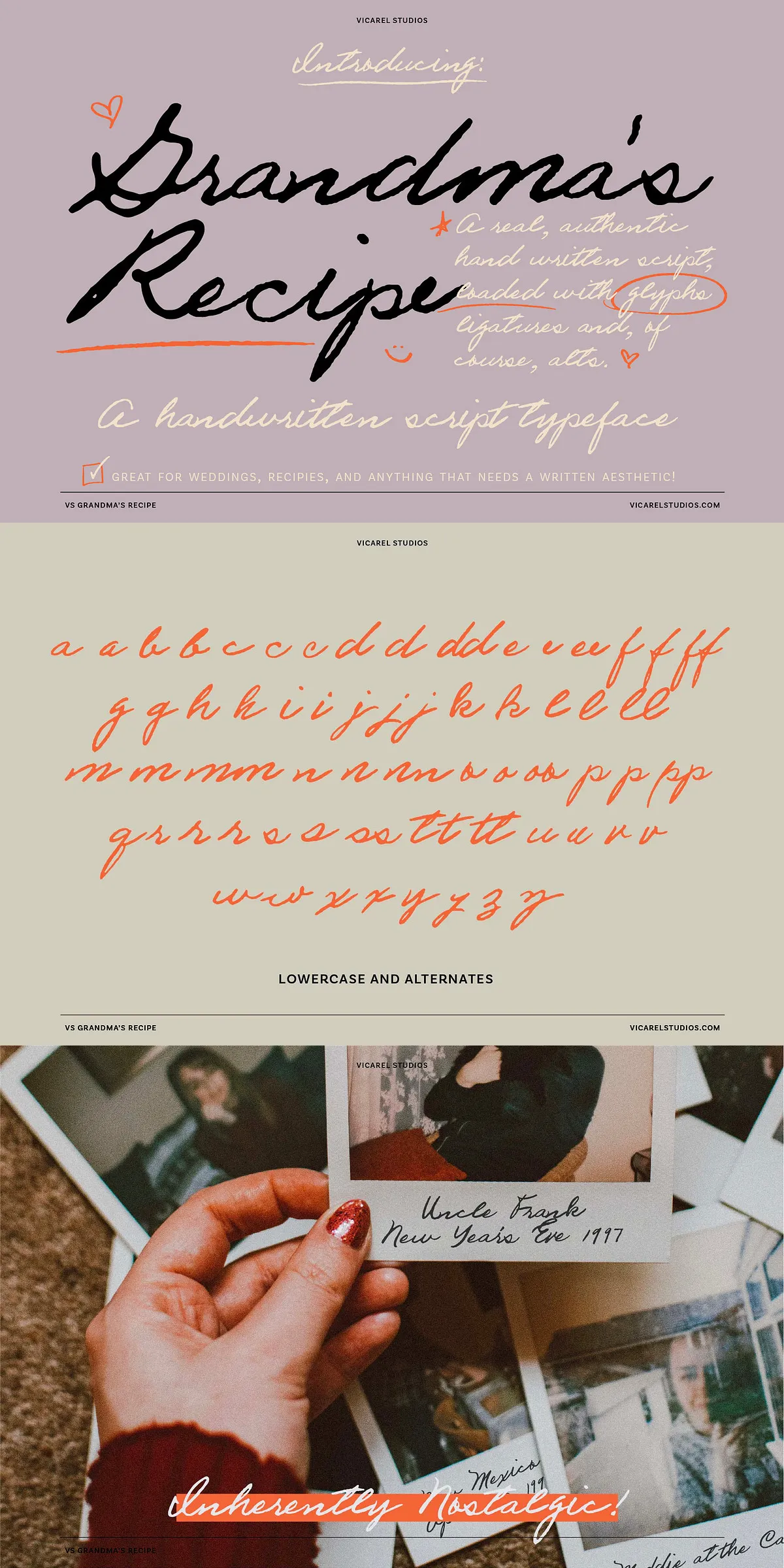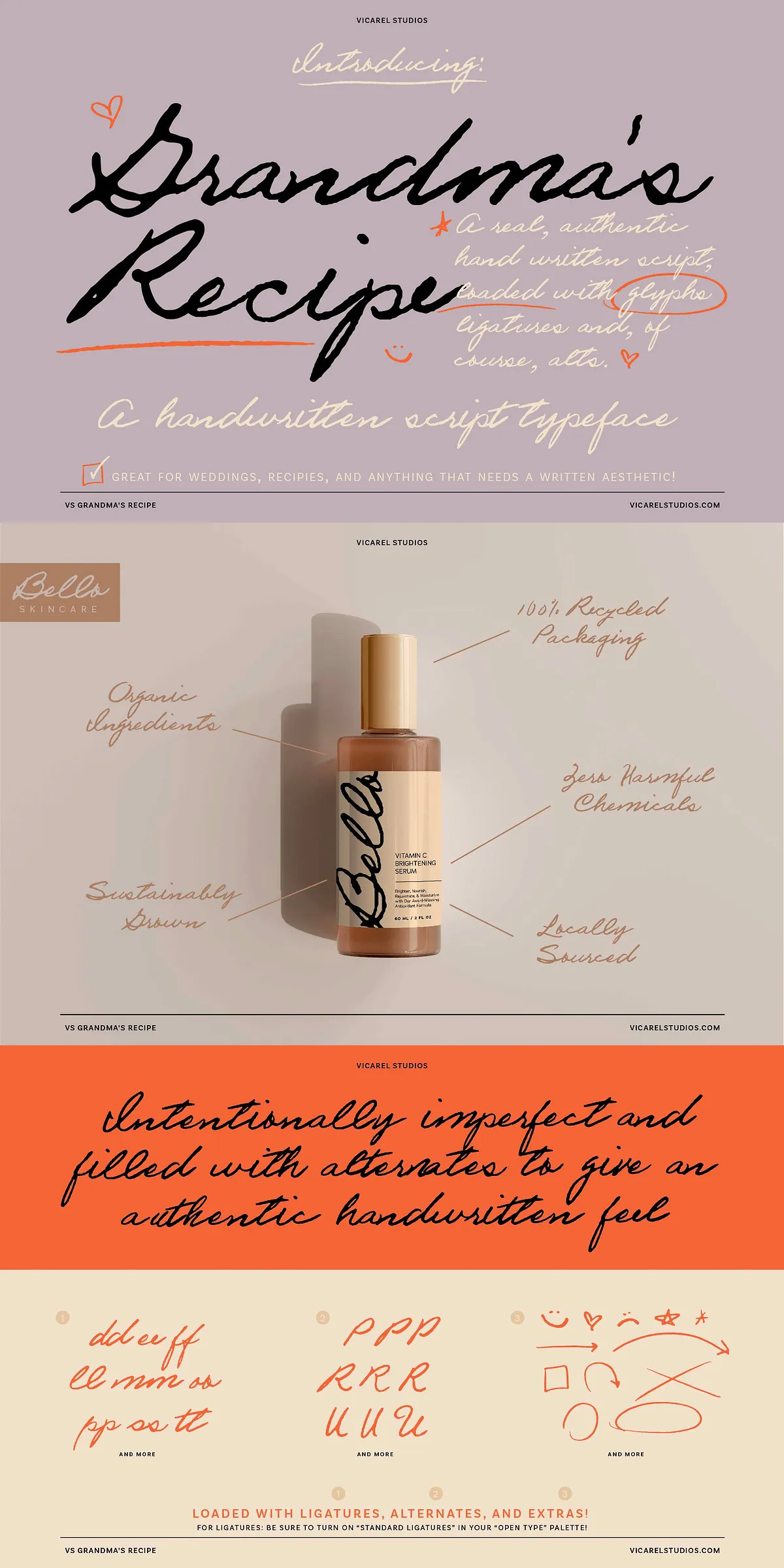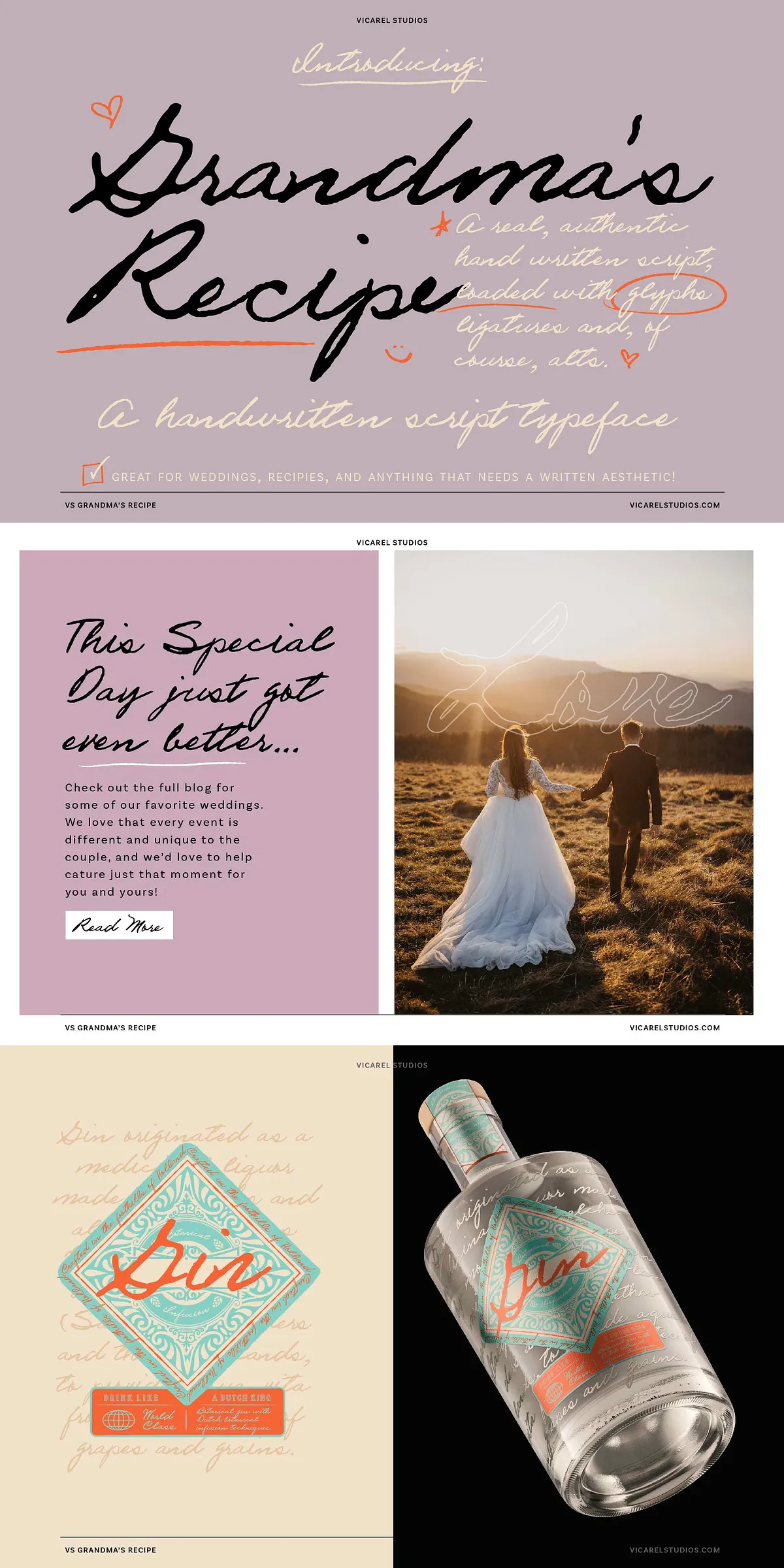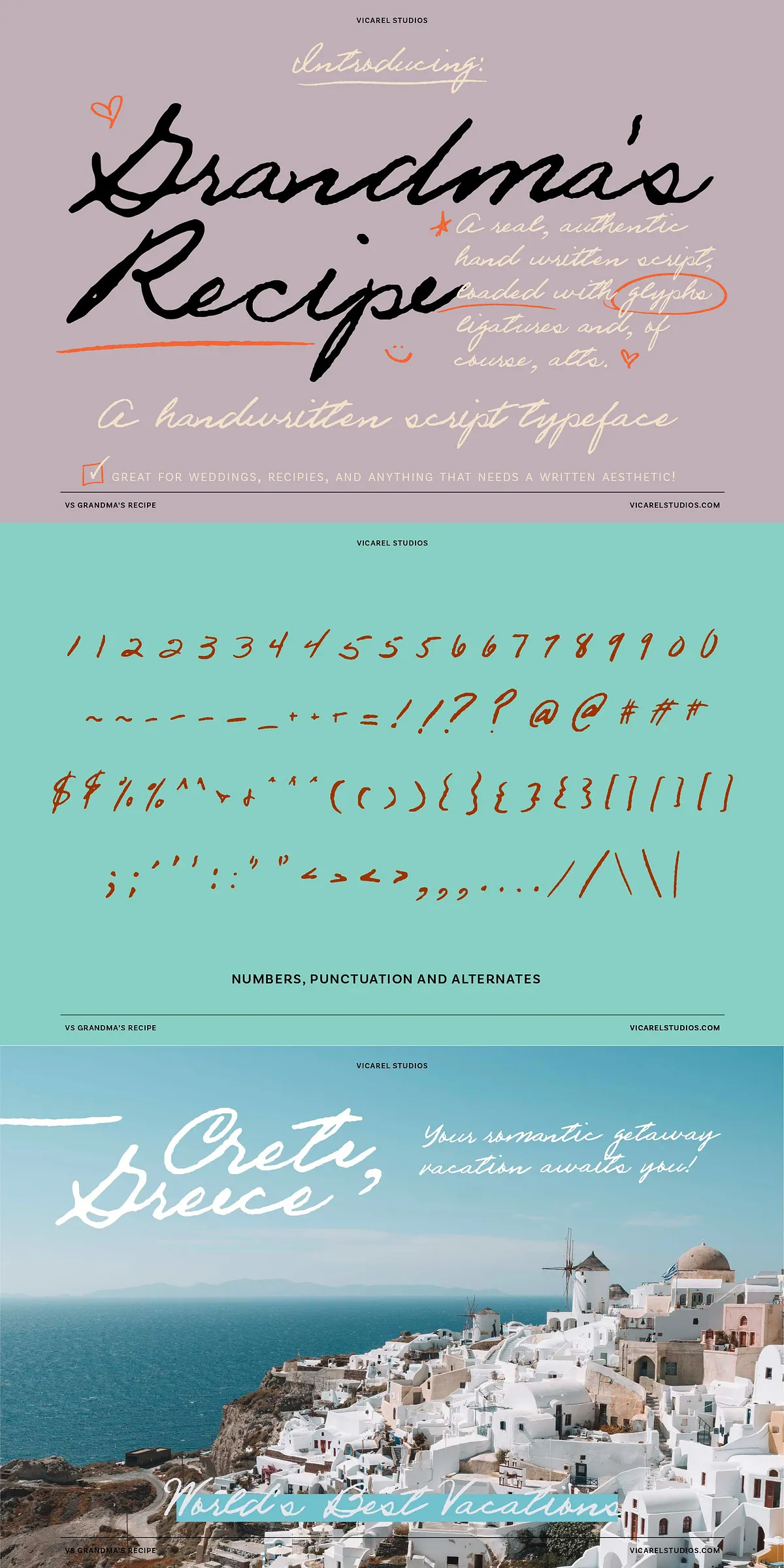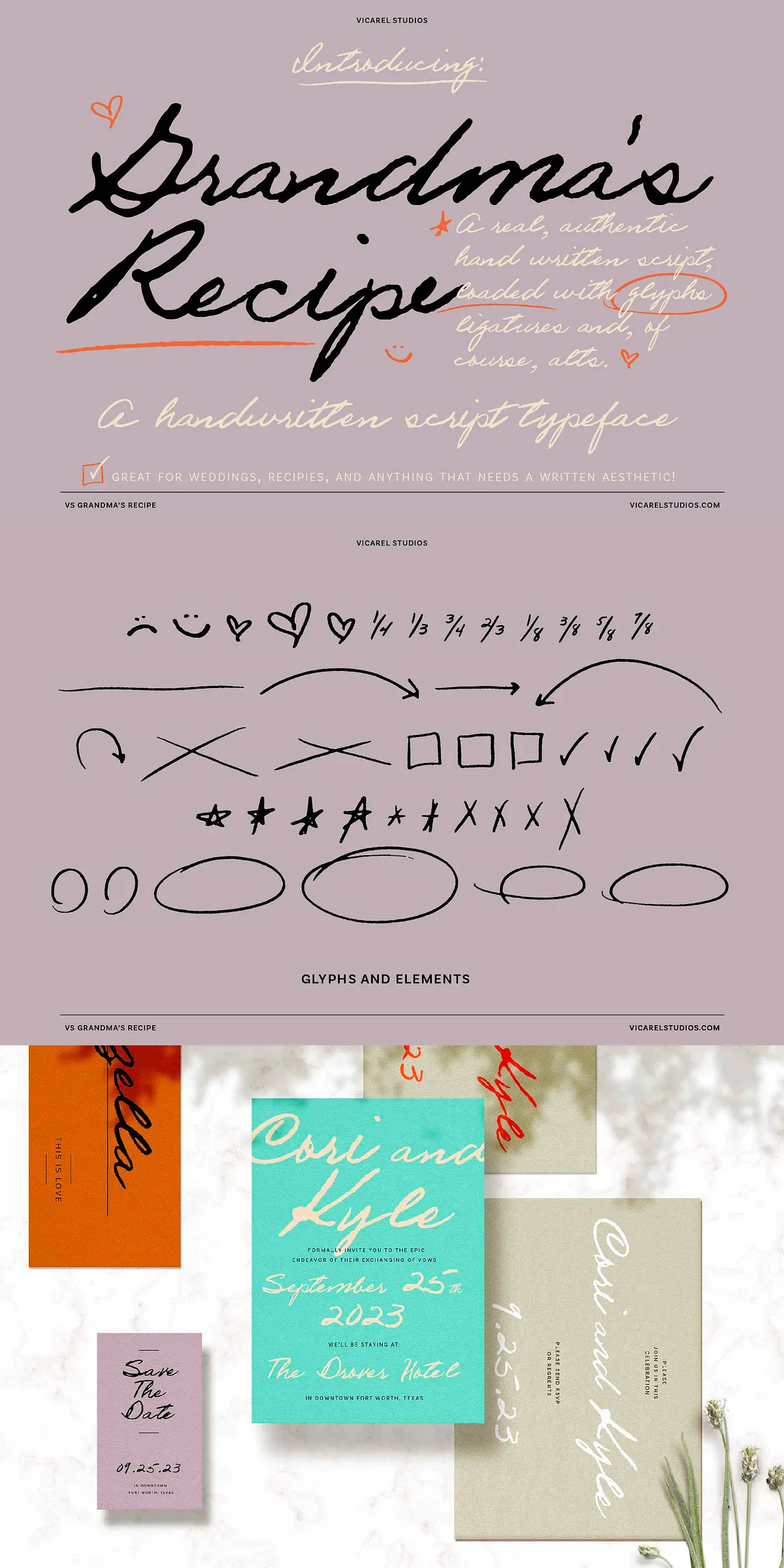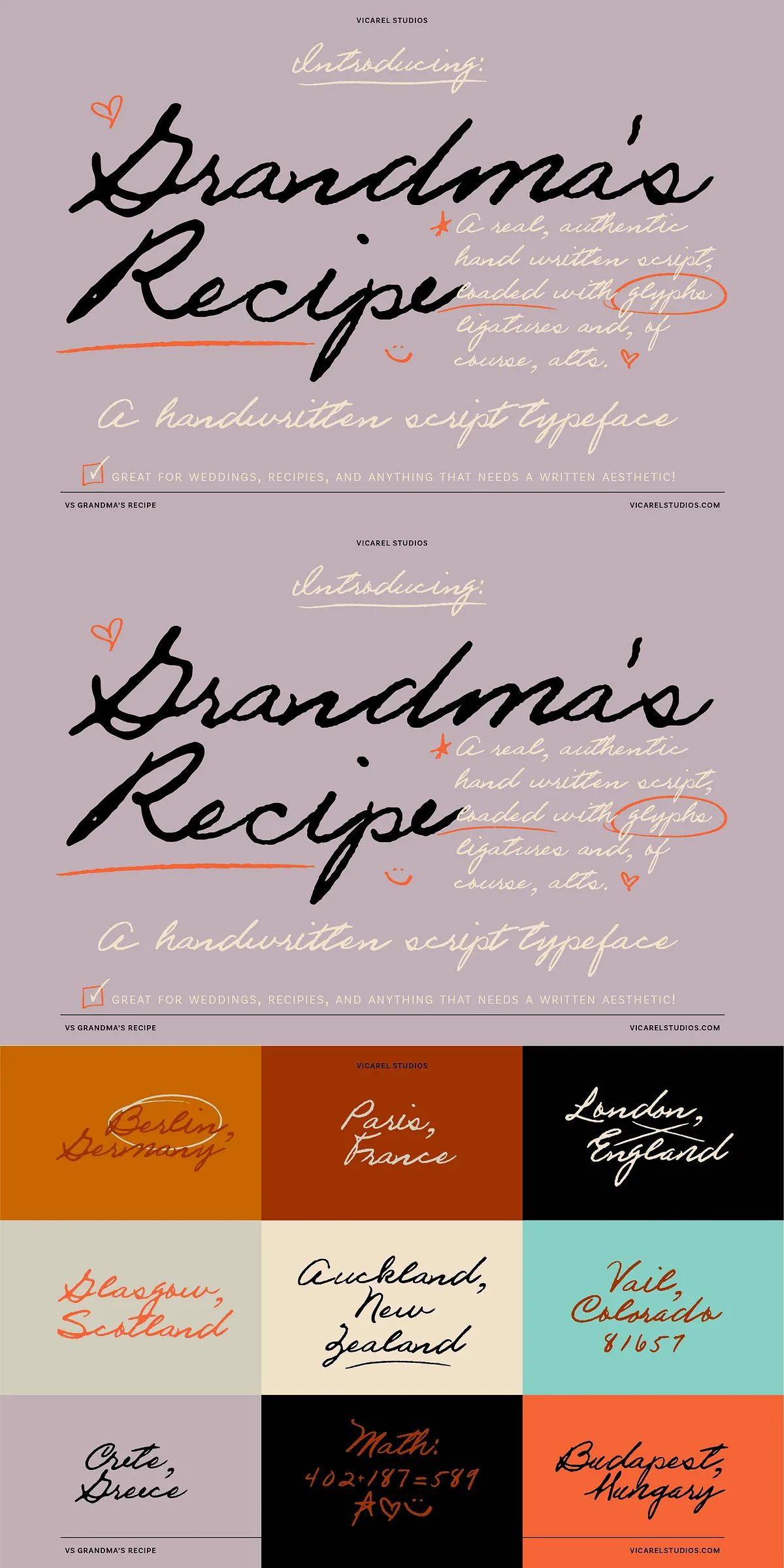
Step into the warmth of personal history with Vicarel Studios Grandma’s Recipe OTF – a one-of-a-kind handwritten script font inspired by the genuine, soulful handwriting of designer Carly Salzman’s grandmother, Dorothy. This isn’t just a digital typeface; it’s a tribute to authenticity, imperfection, and the quiet beauty of everyday writing. Let every curve and stroke carry the character of a handwritten note passed down through generations.
Authenticity You Can Feel: The Imperfections Are the Magic
True artistry thrives in the details. Vicarel Studios Grandma’s Recipe OTF captures that truth with astonishing fidelity. Every letter is designed to reflect the natural quirks of real handwriting:
- Inconsistent angles – No two strokes are ever perfectly aligned.
- Variable line weight – Thick and thin swells mimic the pressure of a pen on paper.
- Uneven spacing – Letters breathe at their own pace, just like real handwriting.
- Sporadic connecting strokes – Some letters flow together, others stand alone, creating organic rhythm.
- Multiple glyph variations – Each letter, number, and punctuation mark comes in 2–3 unique forms.
- Slight baseline shifts – The text line subtly wavers, just like a human hand would.
These intentional imperfections are not flaws. They are the essence of what makes this font so powerful. You can create words like “birthday” with two different “b’s”, two different “r’s”, and unique “d’s” and “y’s” – giving each line a distinct, hand-crafted feel that no perfectly smooth font can replicate.
Rich Character Set with 155+ Advanced Glyphs
Built for creative depth, Grandma’s Recipe includes over 155 meticulously crafted glyphs, featuring:
- Full uppercase and lowercase letter sets
- Multiple alternate forms for every character
- Contextual ligatures that respond naturally to surrounding letters
- Special punctuation and numerals for polished typography
- Complete support for Western European languages
Each glyph was hand-tuned to preserve the emotional tone of original handwriting, ensuring your designs feel personal, warm, and deeply human.
Perfect for Story-Driven Design Projects
With its heartfelt origins and authentic character, Vicarel Studios Grandma’s Recipe OTF is ideal for projects that value storytelling, nostalgia, and connection. Use it to bring real emotion to:
- Wedding invitations, save-the-date cards, and guest books
- Bespoke logo designs and brand identities for artisanal, lifestyle, or family-run businesses
- Liquor labels, food packaging, and product design with a nostalgic or vintage twist
- Blogs, websites, and social media content in the travel, photography, influencer, and lifestyle niches
- Apparel labels, journals, and stationery with a handmade aesthetic
- Magazine layouts and editorial spreads in vintage, lifestyle, or personal narrative publications
This font doesn’t just look good – it tells a story.
Design with Intention: Pair It Right
For maximum visual harmony, pair Grandma’s Recipe OTF with clean, understated typefaces. It shines brightest when balanced with:
- Low-cap-height serif fonts – Such as *Mrs. Eaves* or *Cormorant Garamond* for elegant contrast.
- Simple sans-serif fonts – Like *Basic Sans* or *Helvetica Neue* for a crisp, modern backdrop.
This pairing creates a visual conversation: the warmth and personality of the script voice against a calm, stable foundation.